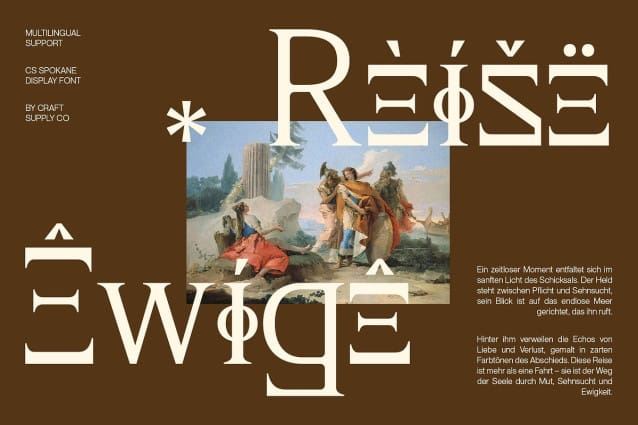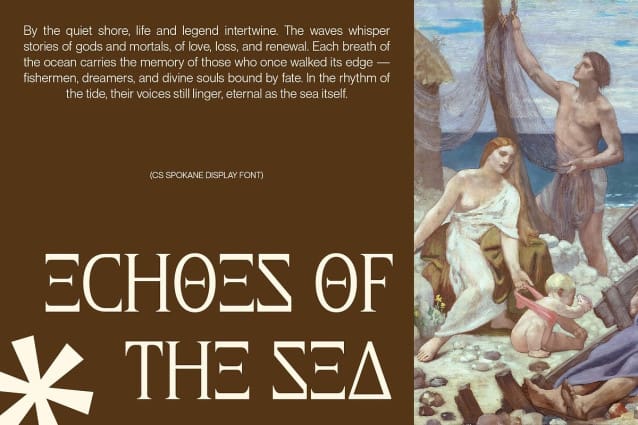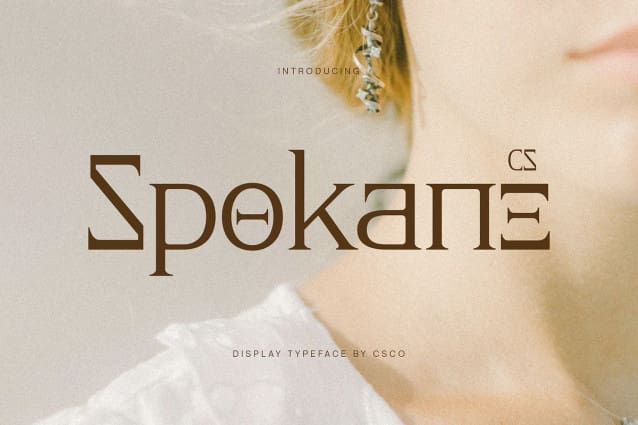
CS Spokane Font This is a classic serif display font inspired by the refined beauty of ancient Greek design. Its sculpted serifs and elegant proportions evoke the sophistication of classical architecture, blending historical depth with modern sensibility. Each letter embodies a sense of balance and poise, making it ideal for projects that value tradition with a contemporary touch.
Ancient Influence with Modern Refinement Drawing inspiration from Greek inscriptions and timeless typographic forms, this font merges old-world gravitas with clean, modern detailing. The result is a typeface that feels both cultured and current perfect for designers seeking to communicate strength, elegance, and intellectual sophistication.
Graceful Forms for Lasting Impact With its precise serifs and harmonious structure, this font delivers clarity and refinement in every stroke. The carefully considered letterforms give text a majestic rhythm, ideal for sophisticated titles, branding, or editorial layouts that aim to leave a lasting impression.
Perfect for Luxury and Editorial Design Whether for luxury branding, high-end editorials, or striking poster work, this font elevates any design with its classic charm and polished precision. Its blend of historical influence and modern execution makes it a versatile choice for designers who appreciate timeless beauty expressed through refined typography.